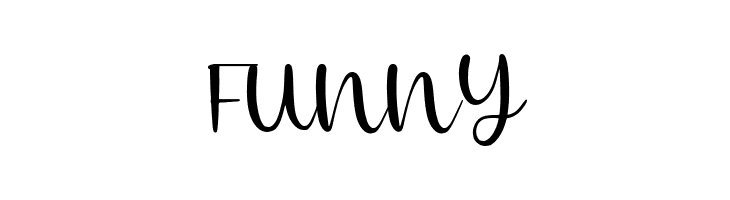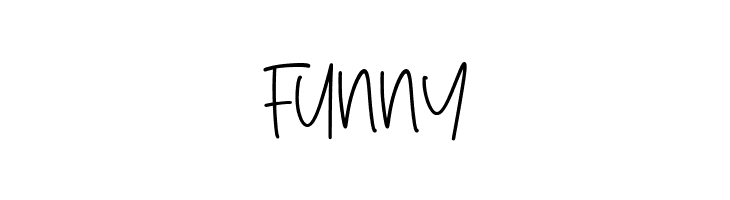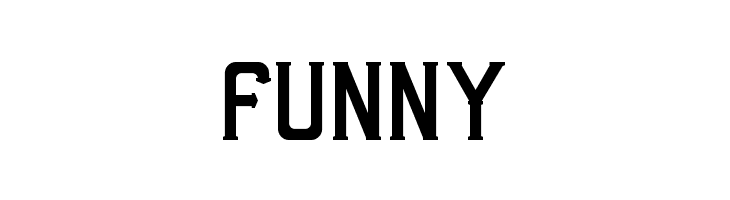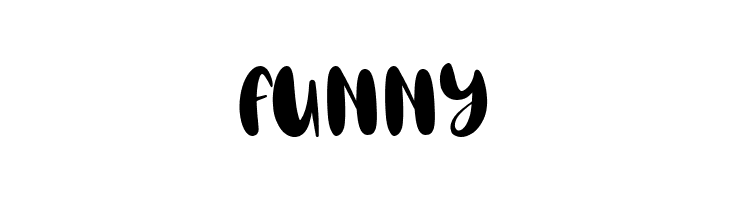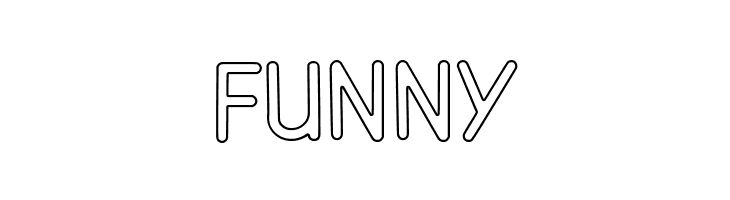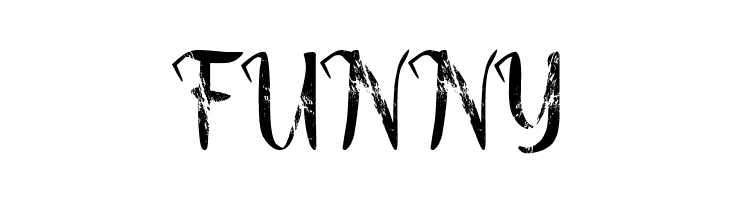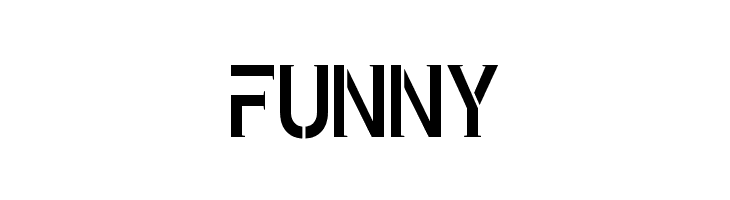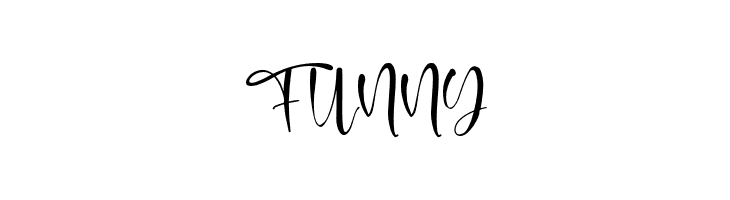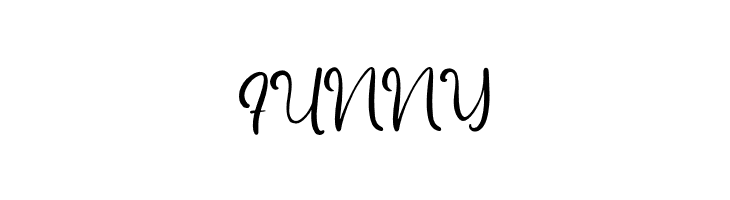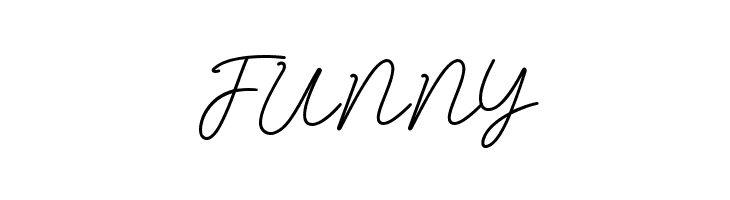
( Fonts by Azmi Naufal )
A bold, abstract font with dynamic, fluid strokes and artistic curves.
A stylish script font with elegant, flowing strokes and a handwritten feel.
( Fonts by nomlimofont )
Playful handwritten font with a casual style.
A lively and expressive script font with flowing, cursive letterforms.
A playful, flowing handwritten font with elegant loops and smooth cursive strokes.
( Fonts by Yoga Letter )
A bold, jagged display font with a spooky, supernatural vibe.
A spooky, dripping font perfect for Halloween themes.
( Fonts by Jimtype Studio )
A playful and bold font with exaggerated curves and angles, perfect for creative projects.
A bold, jagged font with a spooky, haunted theme.
( Darrell Flood - hawtpixel.com )
A bold, italic font with high contrast and dynamic, energetic style.
( Fonts by Masa Aska Sanurumi )
A playful, handwritten font with a casual and friendly appearance.
An elegant script font with flowing, interconnected letters and decorative flourishes.
Elegant cursive font with interconnected characters and stylish flourishes.
( Fonts by Neale Davidson - www.pixelsagas.com )
A bold, oblique font with a futuristic and dynamic style.
A modern, elegant script font with a flowing, handwritten style.
A dynamic, flowing script font with elegant cursive letterforms.
( Fonts by Tup Wanders - www.tupwanders.nl )
A modern, high-contrast serif font with tall, narrow letterforms and elegant serifs.
A graceful, cursive script font with a smooth, handwritten style.
A bold, italicized font with a pixelated, glitch-inspired design.
A bold, pixelated, italic font with a retro digital aesthetic.
A pixelated, hollow font with a glitchy, retro digital style.
A bold, hollow, glitch-inspired font with a digital, pixelated style.
A bold, pixelated font with a retro digital style.
A bold, pixelated font inspired by retro digital displays.
( Matias Romero - matiasromero.deviantart.com )
A decorative and artistic font with swirling, hand-drawn letterforms.
A bold, expressive script font with flowing strokes and artistic flair.
A bold, elegant script font with flowing, cursive letterforms and high contrast.
A playful and elegant handwritten script font with fluid, connected characters.
A playful handwritten font with smooth, organic strokes and a casual feel.